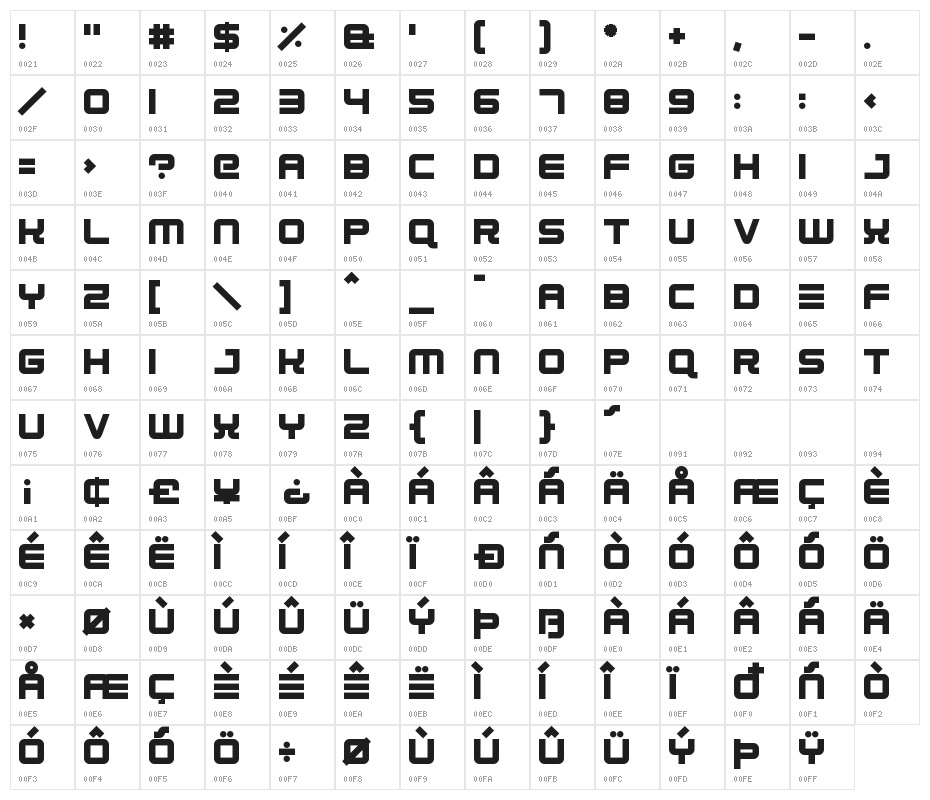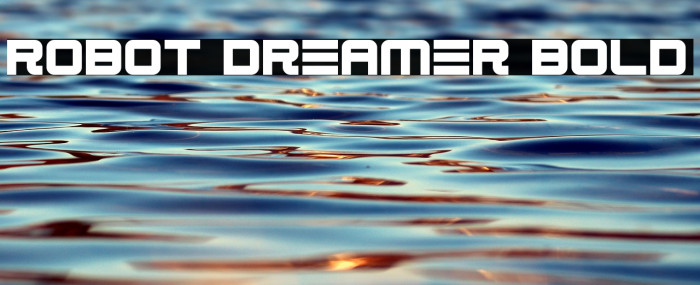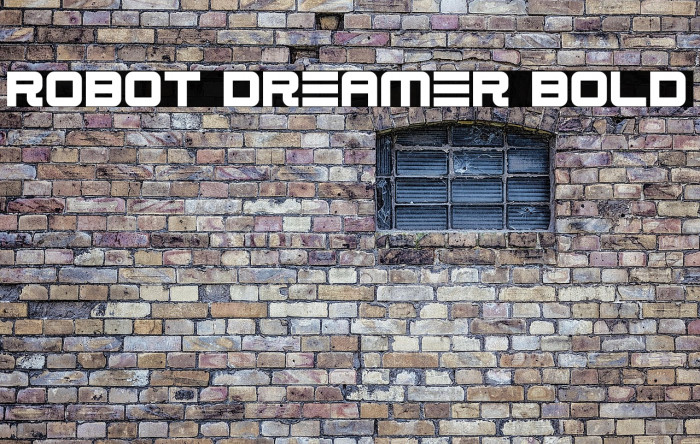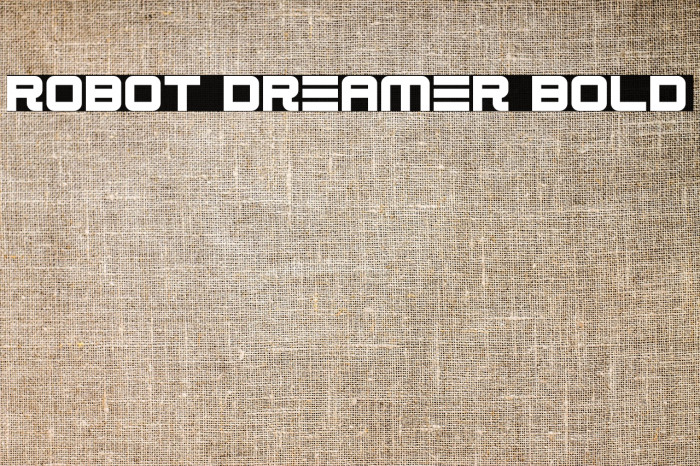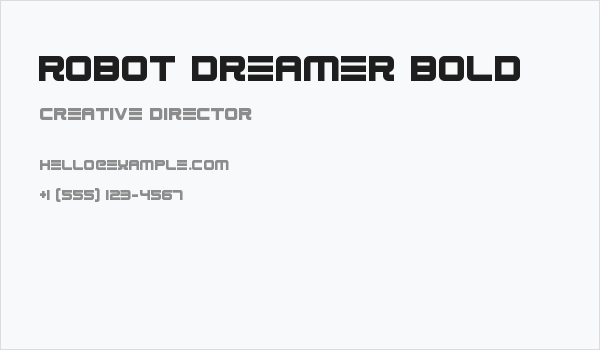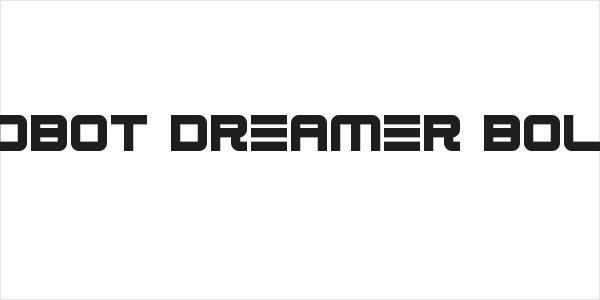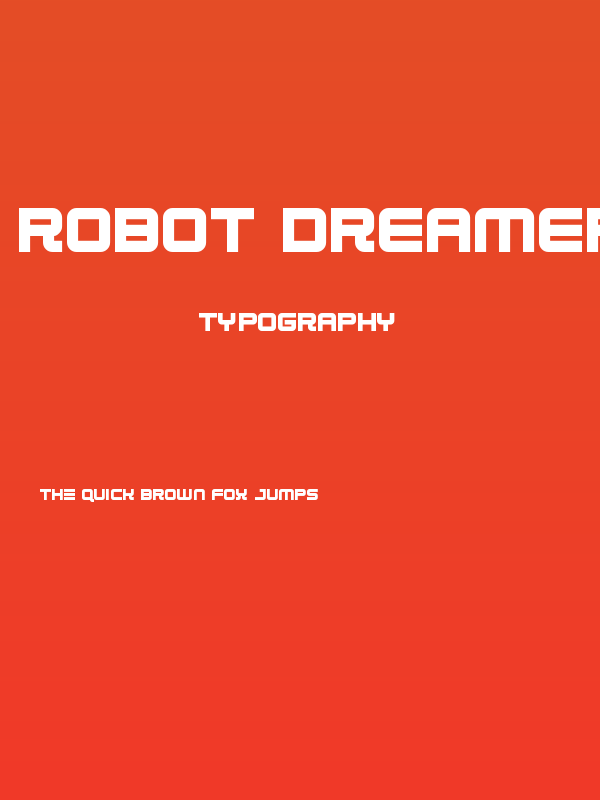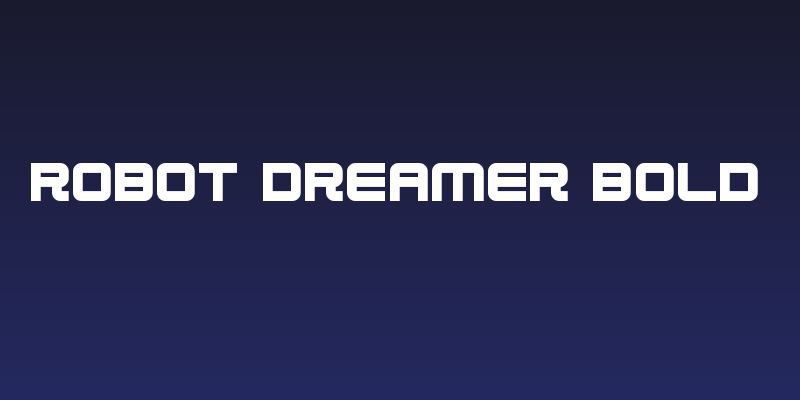
Robot Dreamer Bold Font
Robot Dreamer Bold Description
This font features a bold, futuristic design with geometric shapes and a strong presence. The characters are uniformly wide, with a consistent stroke thickness that gives it a modern, digital feel. The uppercase letters are particularly striking, with a blocky, angular style that suggests a sense of technology and innovation. The numerals and special characters maintain this aesthetic, ensuring a cohesive look across all elements. The font's clean lines and lack of serifs make it highly legible, even at smaller sizes, while its boldness ensures it stands out in any context.
Use CaseHeadlines, Logos, Digital interfaces
Proposed ProjectsIdeal for technology branding, digital interfaces, video game titles, and sci-fi themed projects.